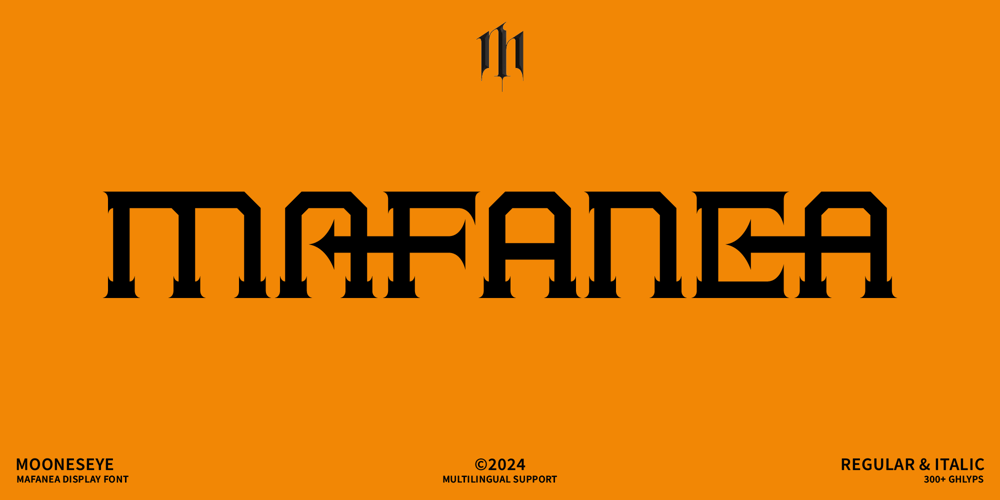
Mafanea Serif Font Family was designed by Elhaq Farid and published by Mooneseye Studio. Mafanea Serif contains 2 styles and family package options. Mafanea Monoline Serif is a distinctive typeface that blends the classic elegance of monoline serif fonts with a contemporary, Gothic-inspired aesthetic. Its unique design offers a harmonious fusion of traditional typography and modern sensibilities, making it a versatile choice for a variety of projects.Key Characteristics: Monoline Design: The uniform stroke width of Mafanea Monoline Serif creates a clean, minimalist appearance, emphasizing the font’s geometric structure. Serif Details: The subtle serif terminals add a touch of sophistication and enhance readability, making the font suitable for both large and small text sizes. Gothic Influence: The font’s overall form and proportions exhibit a subtle Gothic influence, lending it a sense of strength and boldness. Modern Aesthetic: Despite its Gothic inspiration, Mafanea Monoline Serif maintains a contemporary feel, making it compatible with modern design trends. Ideal Applications: Logo Design: The font’s distinctive appearance and strong character make it a great choice for creating memorable logos. Headlines and Titles: Its bold and attention-grabbing design is perfect for headlines, titles, and other prominent text elements. Print and Digital Design: Mafanea Monoline Serif can be used effectively in both print and digital design projects, adding a touch of elegance and sophistication. Branding and Identity: The font’s versatility allows it to be used across various branding and identity applications, from websites to packaging. Mafanea Monoline Serif offers a unique blend of classic and modern elements, creating a typeface that is both visually appealing and functionally versatile. Its distinctive design and exceptional readability make it a valuable addition to any designer’s toolkit.